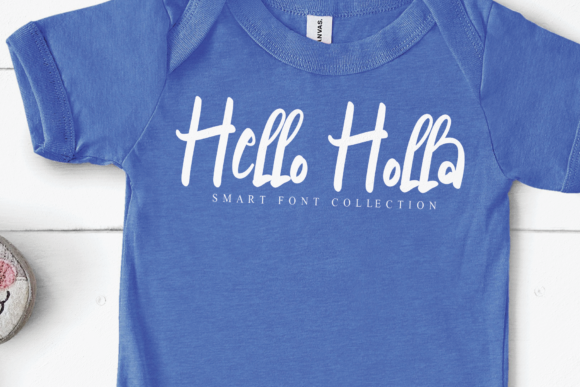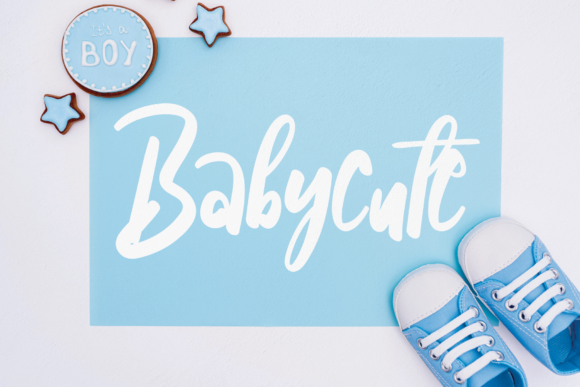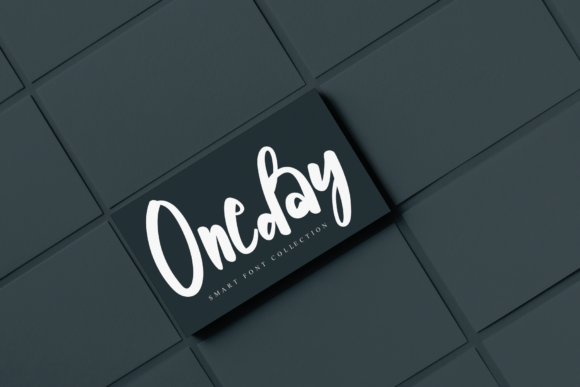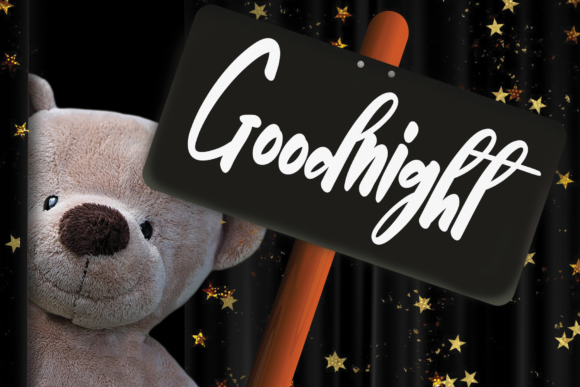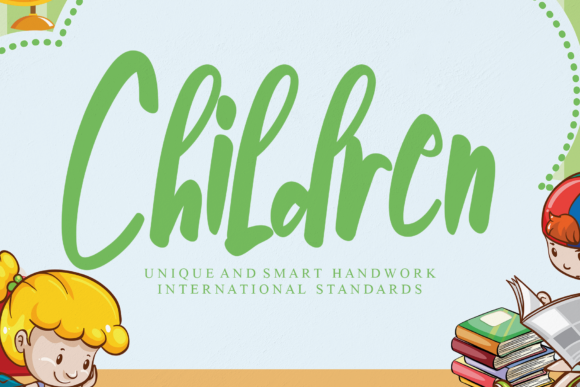
Introducing Children Font: The Ultimate Choice for Kids’ Projects
Are you a designer, teacher, or parent looking for a fun and playful font to add a personal touch to your kids’ projects? Look no further than Children Font, a delightful handwritten font that’s perfect for brightening up any school or kids’ project. In this article, we’ll explore the features and benefits of Children Font, and show you how to get creative with its childlike playfulness.
What is Children Font?
Children Font is a cute and charming handwritten font that’s designed to capture the whimsy and imagination of childhood. With its playful and carefree feel, this font is ideal for use in a variety of kids’ projects, from school assignments and worksheets to posters, flyers, and crafts. Whether you’re a designer looking for a unique font to add to your collection, or a parent or teacher seeking a fun way to engage kids in learning, Children Font is the perfect choice.
Key Features of Children Font
- Handwritten style: Children Font has a lovely handwritten feel that’s reminiscent of kids’ own handwriting. This makes it perfect for projects that require a personal touch.
- Playful and childlike: The font’s playful and childlike design is sure to bring a smile to kids’ faces. It’s the perfect way to add some fun and whimsy to any project.
- Easy to read: Despite its playful design, Children Font is still easy to read, making it perfect for use in school projects and educational materials.
- Versatile: Children Font can be used in a wide range of projects, from posters and flyers to worksheets and crafts.
Benefits of Using Children Font
So why choose Children Font for your kids’ projects? Here are just a few benefits of using this delightful font:
- Adds a personal touch: Children Font’s handwritten style adds a personal touch to any project, making it feel more special and engaging.
- Encourages creativity: The font’s playful design encourages kids to think creatively and have fun with their projects.
- Perfect for themed projects: Children Font is ideal for themed projects, such as birthday parties, holidays, or special events.
Getting Creative with Children Font
Now that you know more about Children Font, let’s explore some ways to get creative with this delightful font. Here are a few ideas to get you started:
- Create fun and colorful posters: Use Children Font to create eye-catching posters for kids’ events, such as birthday parties or school plays.
- Make engaging worksheets: Add a playful touch to worksheets and educational materials with Children Font.
- Design cute crafts: Use Children Font to add a personal touch to kids’ crafts, such as greeting cards, gift tags, or scrapbook pages.
- Develop a brand identity: If you’re a designer or business owner, consider using Children Font as part of your brand identity for kids-related projects.
In conclusion, Children Font is a delightful handwritten font that’s perfect for adding a touch of whimsy and playfulness to kids’ projects. With its easy-to-read design, playful feel, and versatility, this font is ideal for designers, teachers, and parents looking for a fun way to engage kids in learning. So why not give Children Font a try today and see the creative possibilities unfold?
Whether you’re working on a school project, creating crafts, or designing materials for kids, Children Font is sure to bring a smile to kids’ faces. Get creative with its childlike playfulness and use it to brighten up any kids’ project!